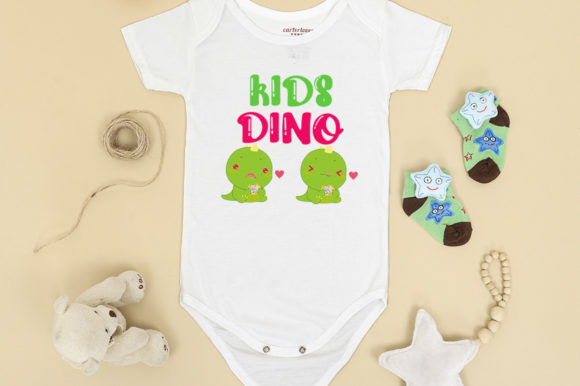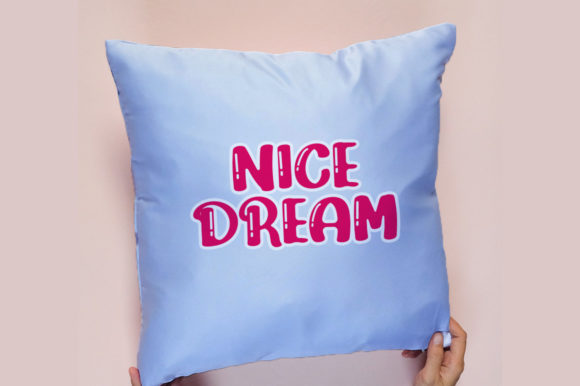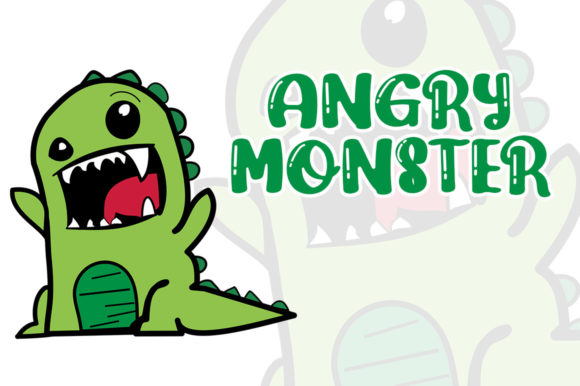
Introduction to Little Flower Font
Little Flower is a cute, delicate and chic display font.
It embodies playfulness and authenticity and is the perfect choice for any children activity or school project .